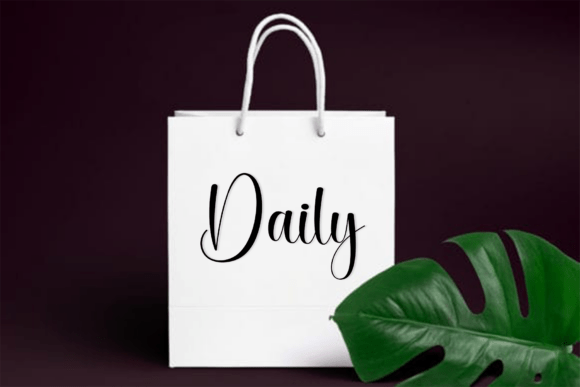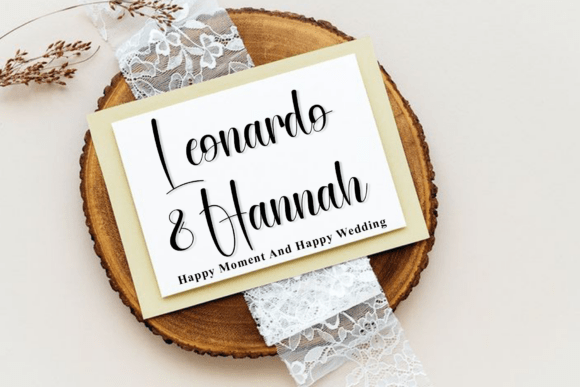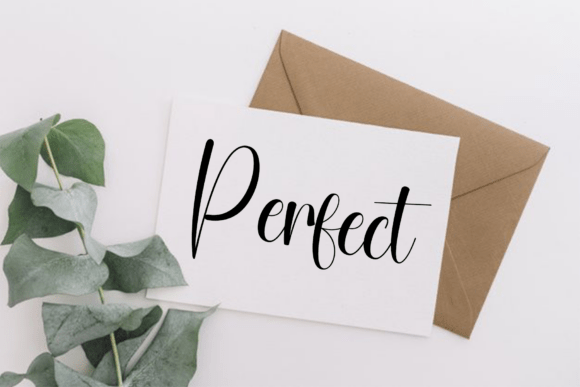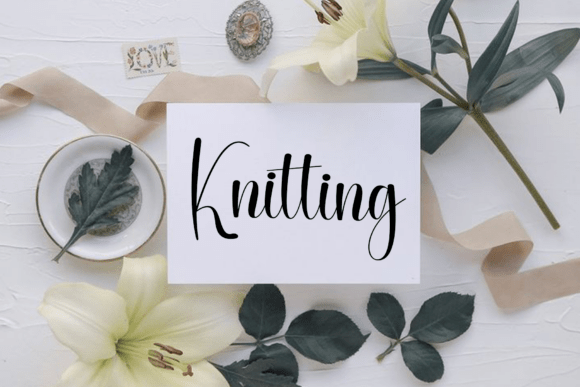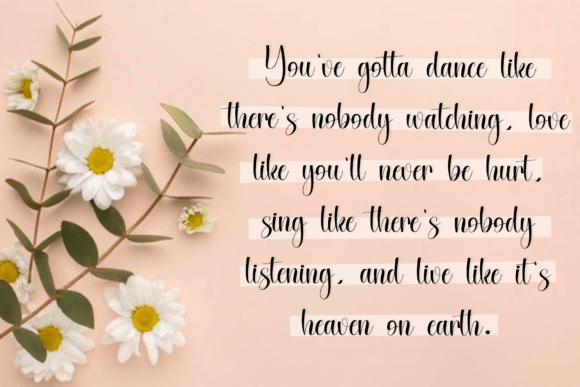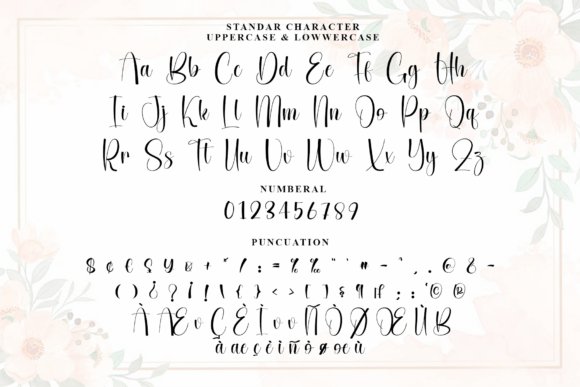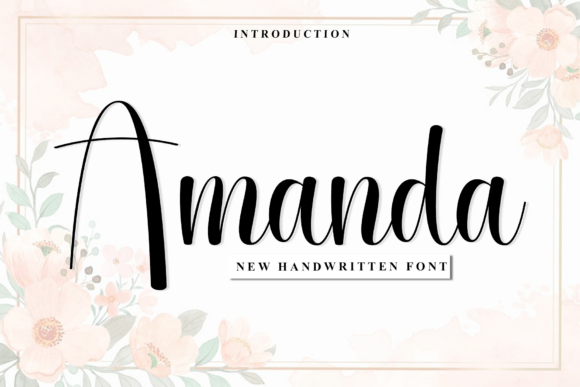
The Elegance of Amanda Font: A Designer’s Dream Come True
I still remember the exact moment I fell in love with the Amanda font. I was working on a luxury wedding stationery project, and my client had a very specific vision in mind – elegant, sophisticated, and modern. I had spent hours scouring the internet for the perfect font, but nothing seemed to fit the bill. That was when I stumbled upon Amanda, and it was love at first sight. The fluid handwritten script font captured the essence of a high-end, personalized aesthetic that my client was looking for.
I’ve had the pleasure of working with Amanda font on several projects, and here’s what I have to say:
- ✨ Elegant and fluid handwritten script that exudes sophistication
- ✅ High-contrast strokes with sweeping loops and fine, tapering terminals
- ✅ Expansive horizontal presence that commands attention
- ✅ Delicate connections between characters that provide a natural handwritten flow
However, I do have to mention a few quirks:
- 🤔 The font can be a bit challenging to read at smaller sizes, so it’s best used for headlines or titles.
- ⚠️ Some of the glyphs and stylistic alternates can be a bit tricky to navigate, but trust me, it’s worth the extra effort.
- Experiment with the OpenType features, such as glyphs and stylistic alternates, to add some personality to your text.
- Experiment with the glyphs, stylistic alternates, and other typography features to create stunning text effects.
The Story Behind Amanda Font
Amanda font was designed by a talented type designer who wanted to create a font that captured the essence of modern sophistication. The designer drew inspiration from classic calligraphy and handwriting, but with a modern twist. The result is a font that’s both elegant and approachable, perfect for luxury branding and high-end design projects.
| What is Amanda font best used for? | Amanda font is best used for luxury branding, high-end editorial projects, and sophisticated lifestyle photography overlays. |
| Is Amanda font suitable for body text? | No, Amanda font is best used for headlines or titles. It’s not recommended for body text due to its elegant and refined nature. |
| Is Amanda font available in different weights? | Yes, Amanda font comes in different weights, including regular, bold, and italic. |